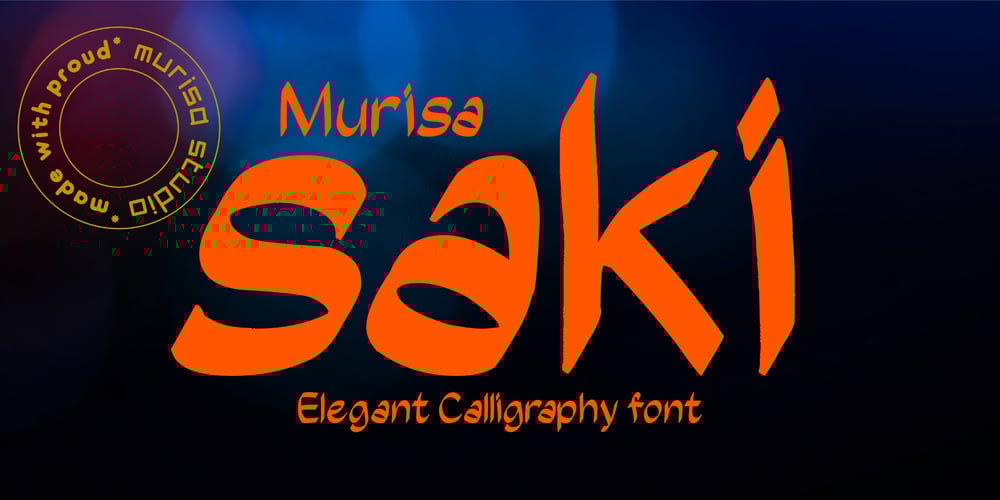
Murisa Saki Font Family was designed by Lili Sadili and published by Murisa Studio. Murisa Saki contains 2 styles and family package options. Hello, today Murisa Studio wants to introduce a new font for those of you who are young at heart, Murisa Saki. This font is inspired by the unique shapes of East Asia and the Middle East. Its unique shape makes this font very good for using as a logo or brand for your company. Get it now..